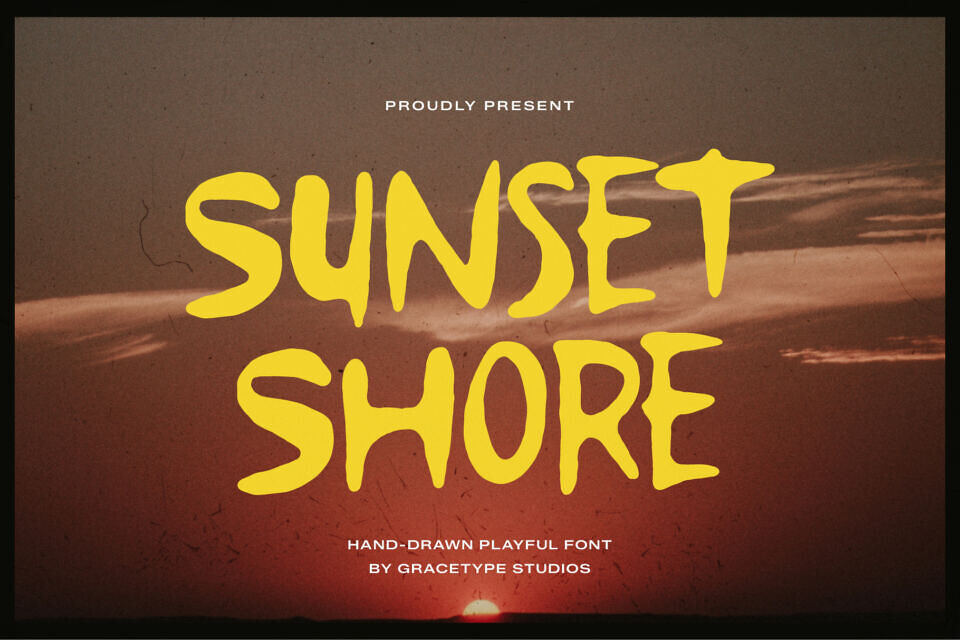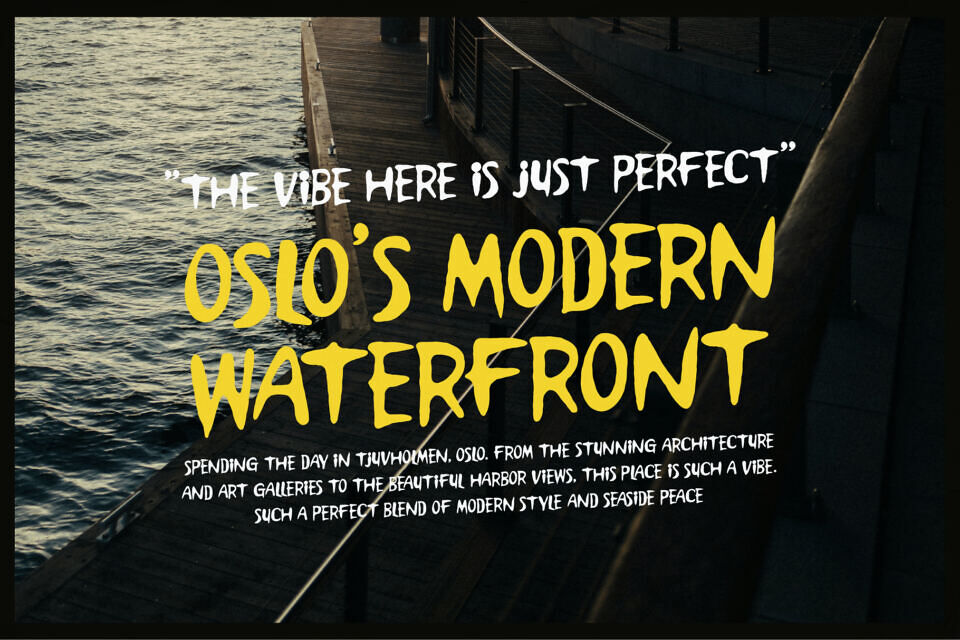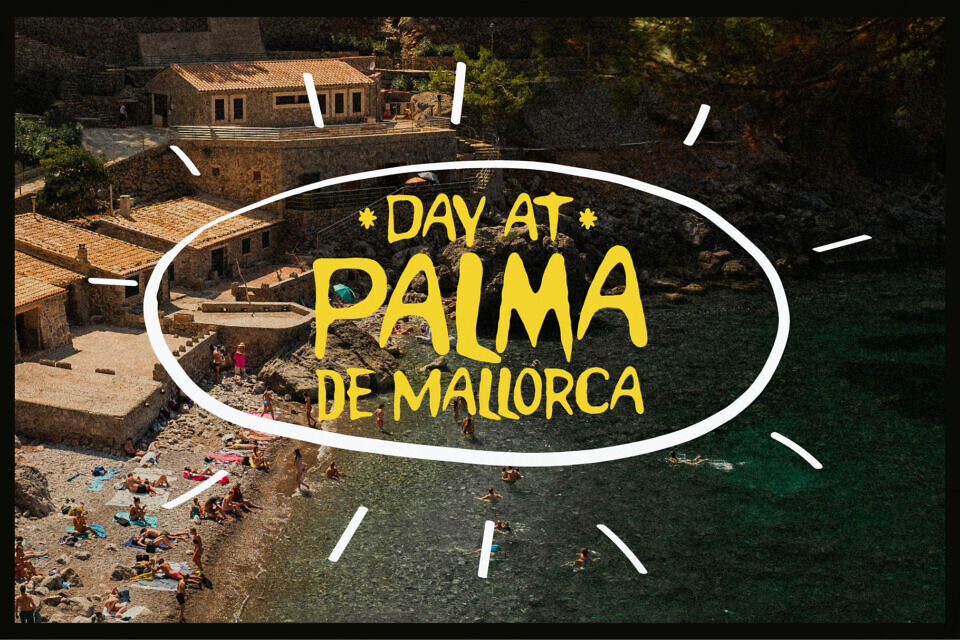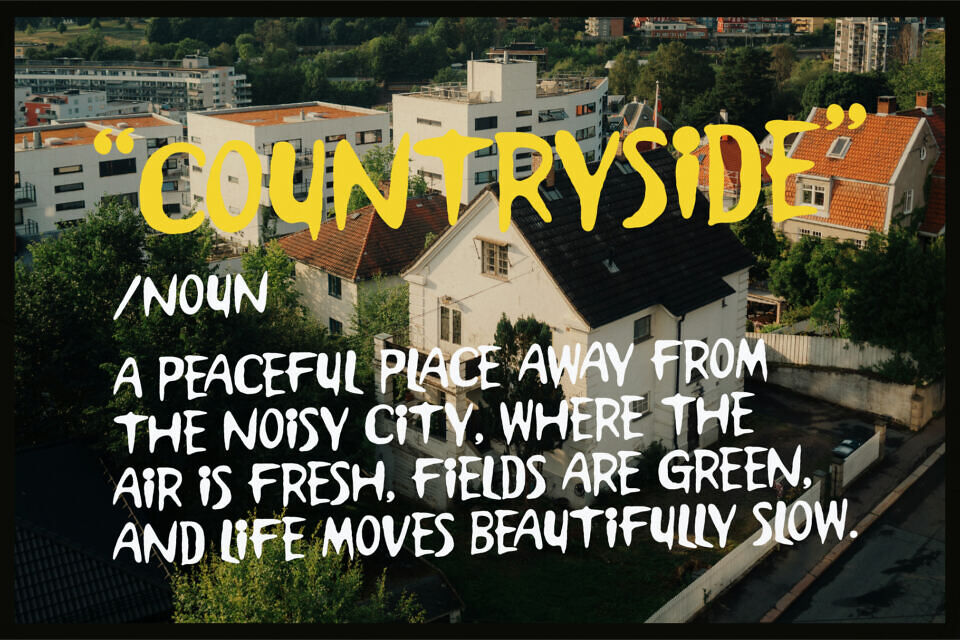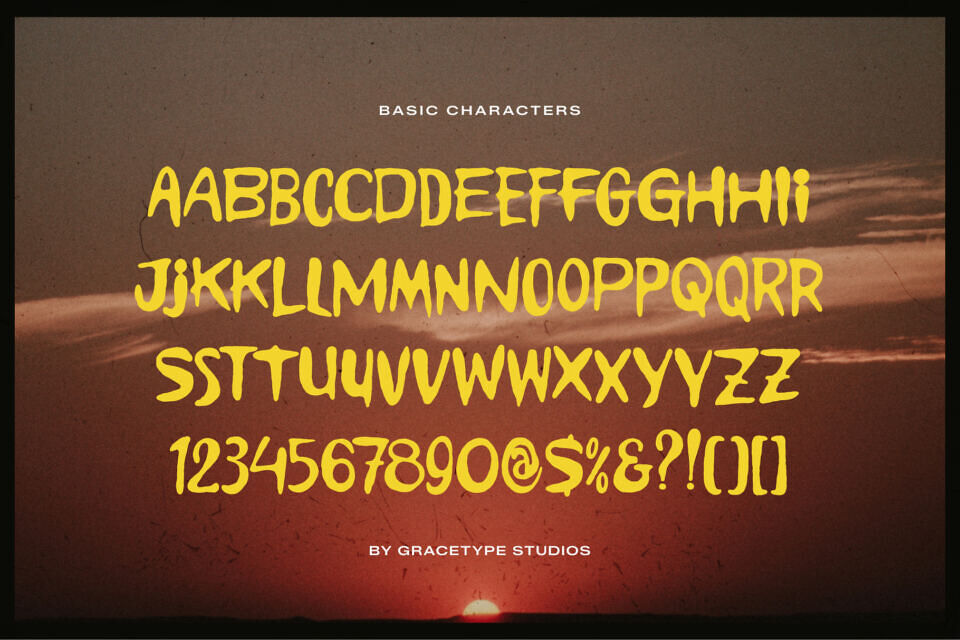
Capture the warm, carefree vibes of endless summer nights with Sunset Shore! This premium hand-drawn playful display font features thick, organic lines and charmingly fluid curves that instantly inject personality into your headlines. Combining a natural, handcrafted aesthetic with great legibility, it perfectly mimics a casual brush style that feels uniquely alive.
Sunset Shore shines beautifully against atmospheric photography, retro beach imagery, and textured vintage overlays. It is an incredible choice for summer-themed merchandise, casual apparel branding, travel blog graphics, friendly packaging designs, and artistic social media titles.